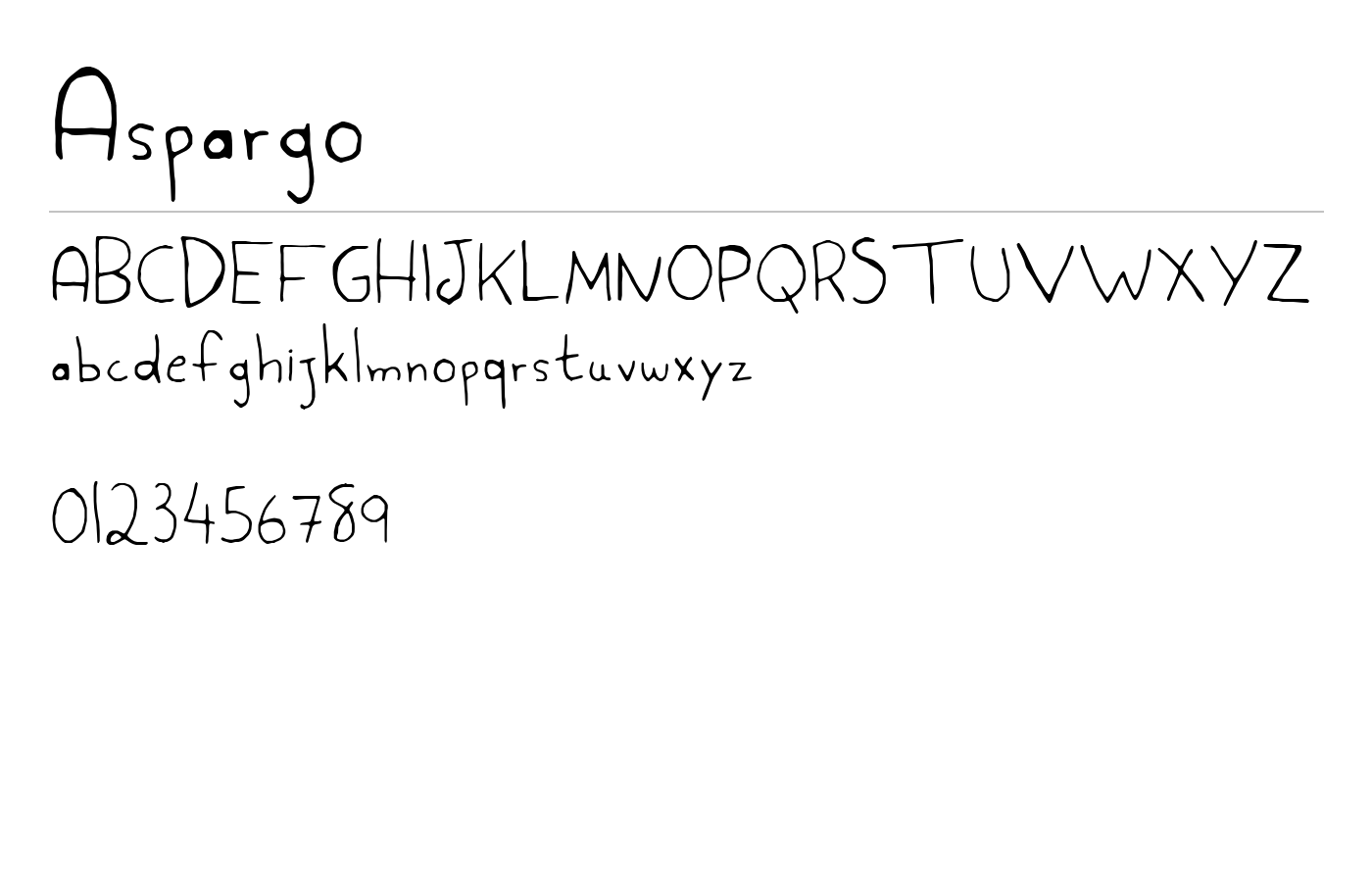
Aspargo is a thin, hand-drawn sans serif font with a quirky and informal character. Its irregular strokes and playful letterforms give it a friendly, approachable feel that suits casual, creative, or child-focused designs. This font works well for personal projects, handmade branding, and artistic editorial layouts where a relaxed and unique touch is desired.
Aspargo Font
About Aspargo Font